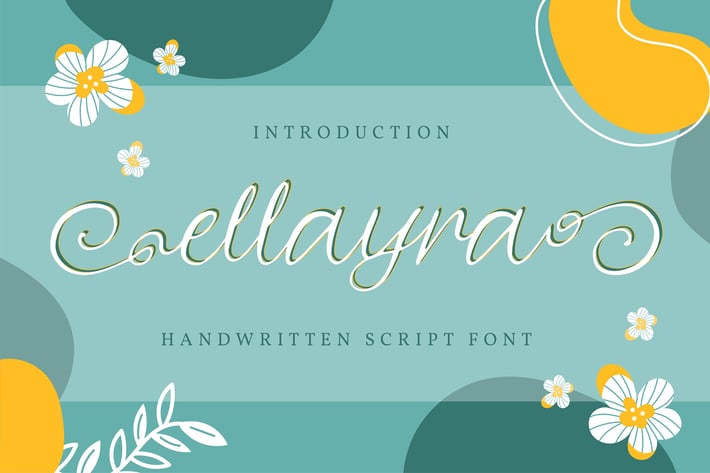
Ellayra | Handwritten Script Font
Ellayra | Handwritten Script Font with a calligraphy style, So beautiful on invitation like greeting cards, branding materials, business cards, quotes, posters, and more!